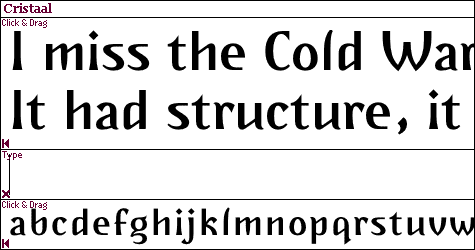
Cristaal is a persona that combines the mechanical with the organic to convey a unique æsthetic. Its unorthodox appearance tends to hide the fact that readability is central to its design: from divergent word-shapes to highly even color to linguistic awareness, Cristaal is much more functional than it lets on. Price: US$50 - Purchase |